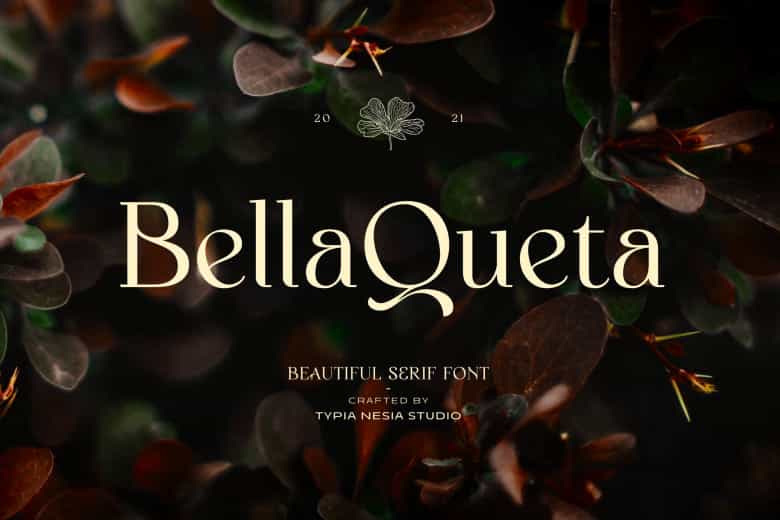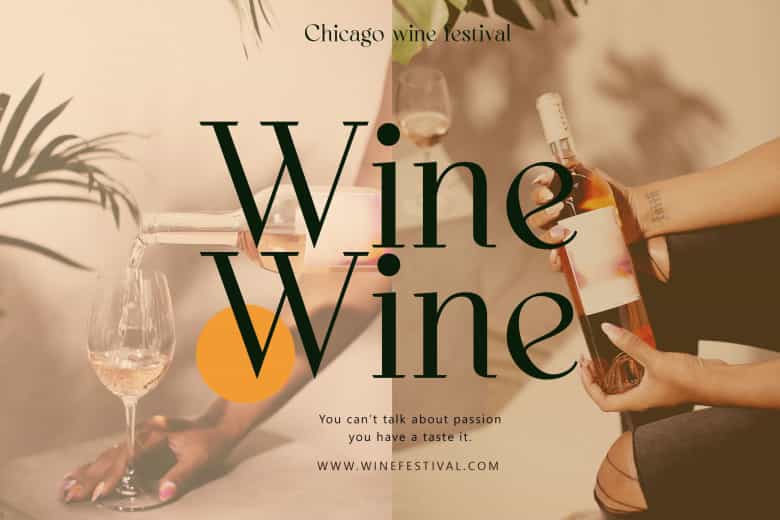
Bella Queta font is an unassuming yet beautiful serif typeface designed with care to bring all your ideas to the fore! Achieve maximum impact using this font today!